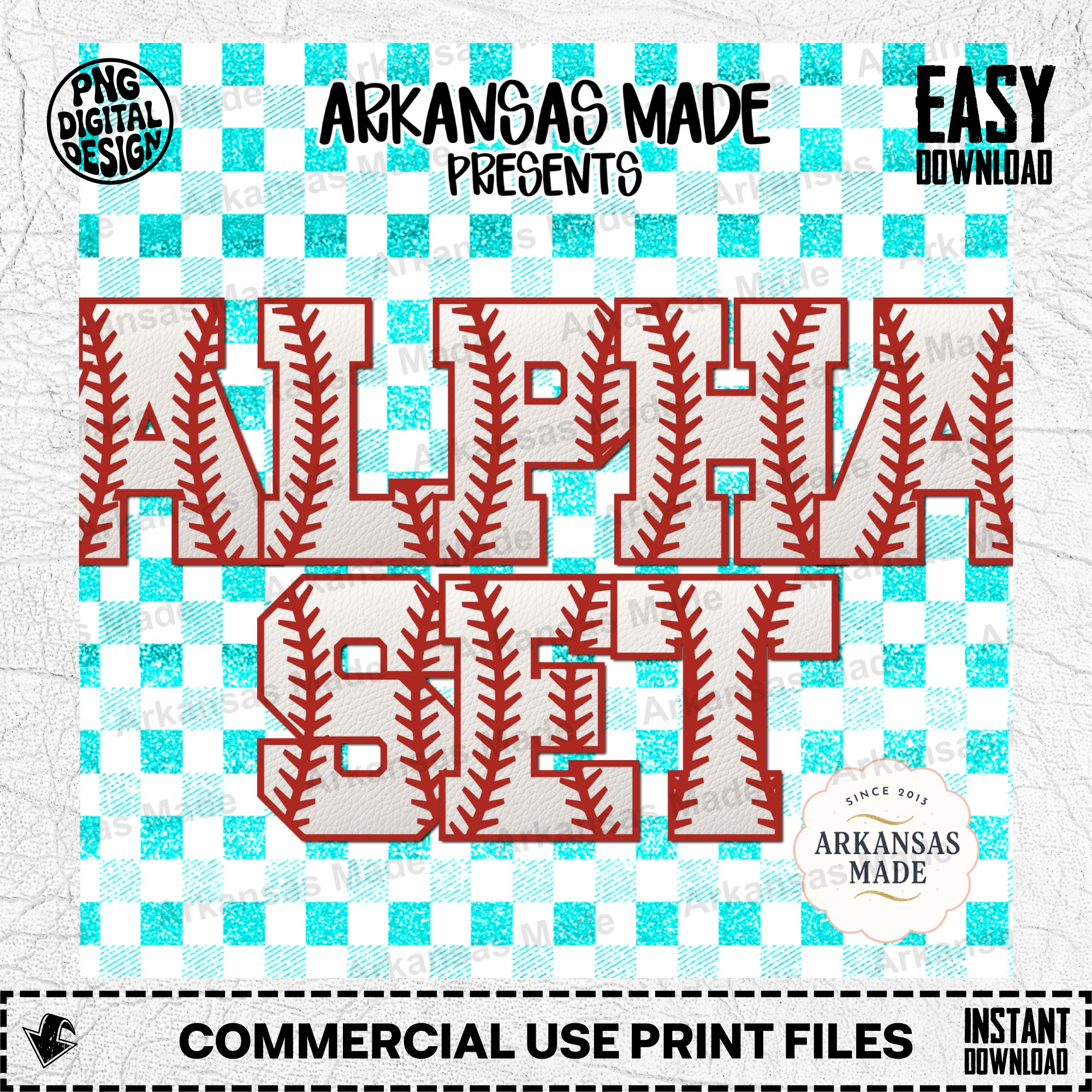
Baseball Stitch Alphabet PNG Digital Download, Sports Font Alpha Set for Custom Designs, Faux Leather Texture Letters
Get your game on with this Baseball Stitch Alphabet Digital Download Alpha Set PNG, perfect for custom sports designs and personalized crafts! Elevate your creations with these sporty varsity-style letters, featuring a detailed faux leather texture and classic red baseball stitching. Ideal for baseball moms, coaches, and crafters, this versatile alpha set brings team spirit to t-shirts, decals, banners, and more. A fantastic choice for unique personalized gifts for players or end-of-season team appreciation.